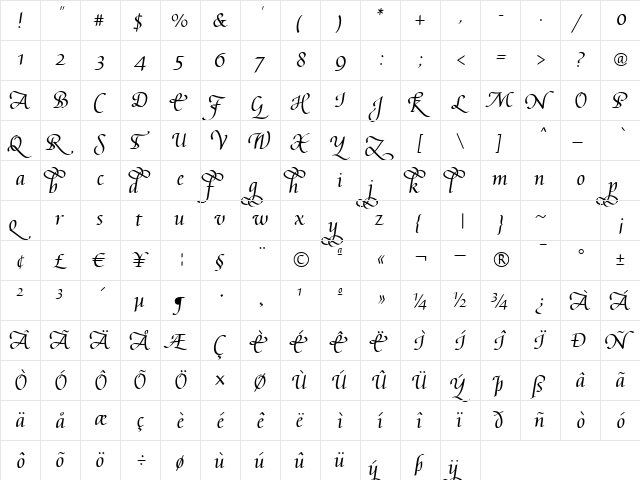
Augusta Cancelaresca Swash Regular
Design Context for Augusta Cancelaresca Swash Typeface
Augusta Cancelaresca Swash brings a calligraphic fluidity to the page — its connecting strokes and expressive curves give it an unmistakably human quality.
Font Pairing: Combine Augusta Cancelaresca Swash with a simple geometric sans for maximum contrast — the tension between flowing curves and clean structure is a classic typographic pairing.
Pro Tip: Pair Augusta Cancelaresca Swash with a clean sans-serif for supporting text. The contrast between fluid script and geometric structure creates an elegant typographic hierarchy.